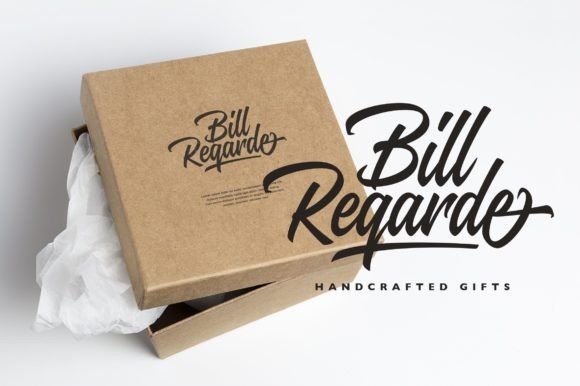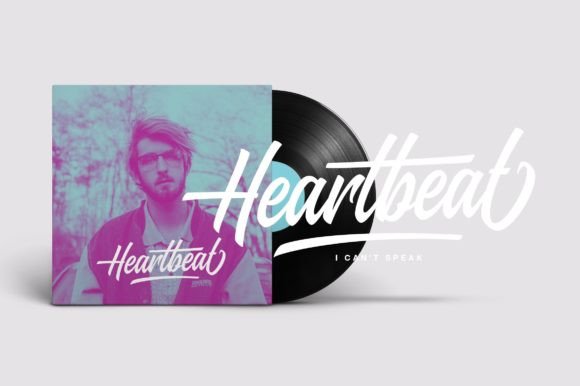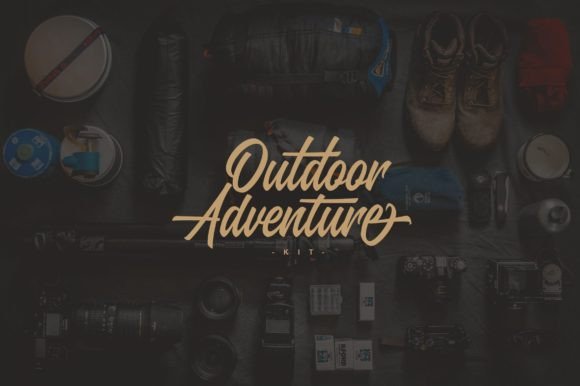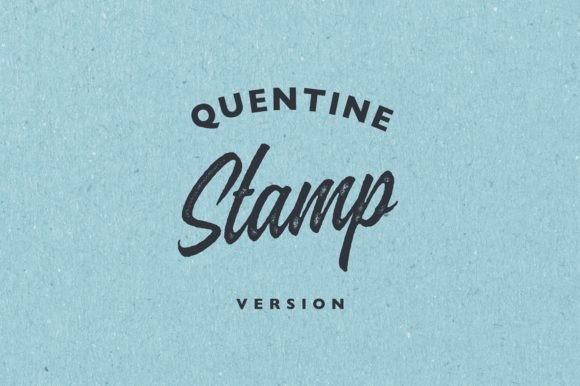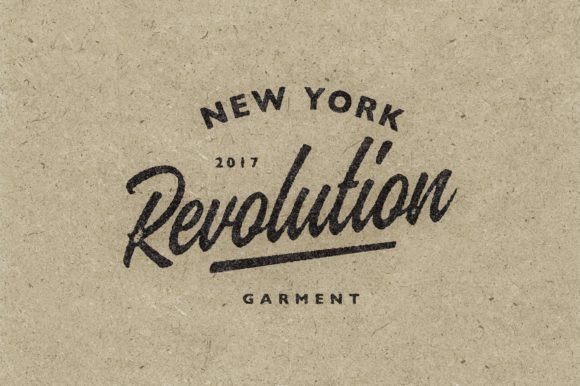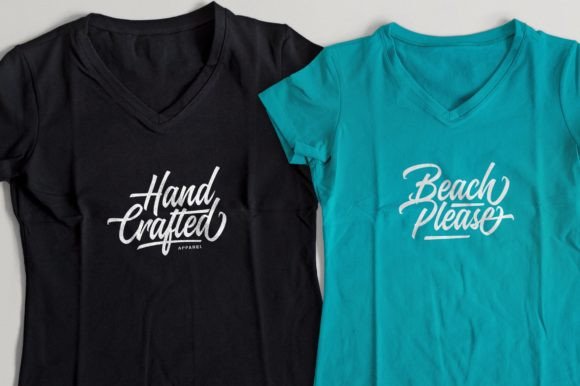
Introduction to Quentine Script Font
Quentine is an enchanting handwritten font.
This versatile script font has a wide spectrum of applications ranging from greeting cards to headlines and is guaranteed to add a romantic feel to your next project .
Key Features of Quentine Script Font